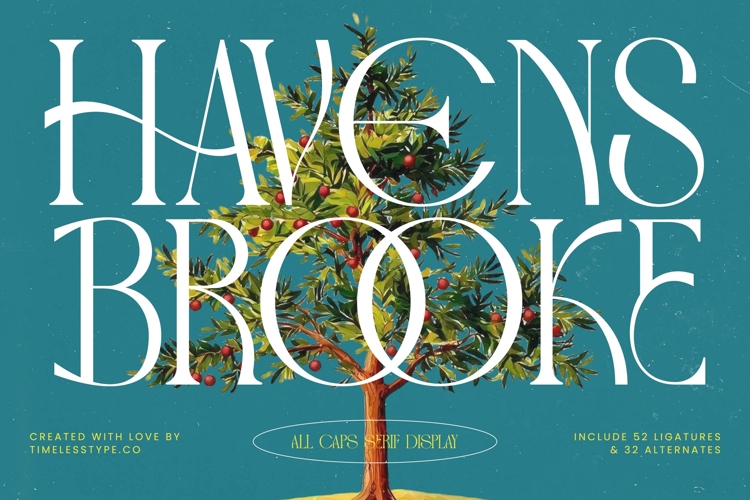
Havens Brooke - All Caps Serif Display
Havens Brooke is an all caps serif display font that embodies elegance, refinement, and bold expression. With its tall, elongated proportions, sharp serifs, and graceful curves, this typeface creates a striking visual rhythm that feels both modern and timeless. Designed with 52 ligatures and 32 alternates, Havens Brooke offers endless creative flexibility, allowing designers to craft distinctive and memorable compositions. Its balance of sophistication and impact makes it ideal for projects that demand authority while maintaining stylish artistry.
This font is crafted to excel in headline typography, where its tall letterforms and unique ligatures instantly capture attention across posters, banners, and editorial covers. In magazine design, book titles, and lifestyle publications, Havens Brooke adds drama and sophistication, elevating layouts into polished works of art. For branding and logo design, it communicates exclusivity and high-end style, making it a perfect choice for luxury products, boutique brands, and creative businesses seeking a refined identity.
Havens Brooke is also highly effective in packaging design, particularly for premium goods such as wine, cosmetics, perfumes, and artisanal products, where typography must project elegance and distinction. In advertising campaigns, event posters, and film promotions, its decorative ligatures and alternates create a dramatic and memorable impact, enhancing the storytelling element of design.
On digital platforms, including websites, social media graphics, and promotional content, Havens Brooke adapts seamlessly, ensuring every layout feels bold, stylish, and editorial-ready. Its timeless structure makes it just as powerful in wedding invitations, certificates, and event branding, where grandeur and refinement are key. With multilingual support, Havens Brooke extends across global markets, making it a versatile tool for international projects.
Ultimately, Havens Brooke is more than a typeface—it is a visual signature of luxury and sophistication. Whether applied to editorials, branding, packaging, advertising, or digital media, it ensures every project stands out with elegance, boldness, and unforgettable presence.